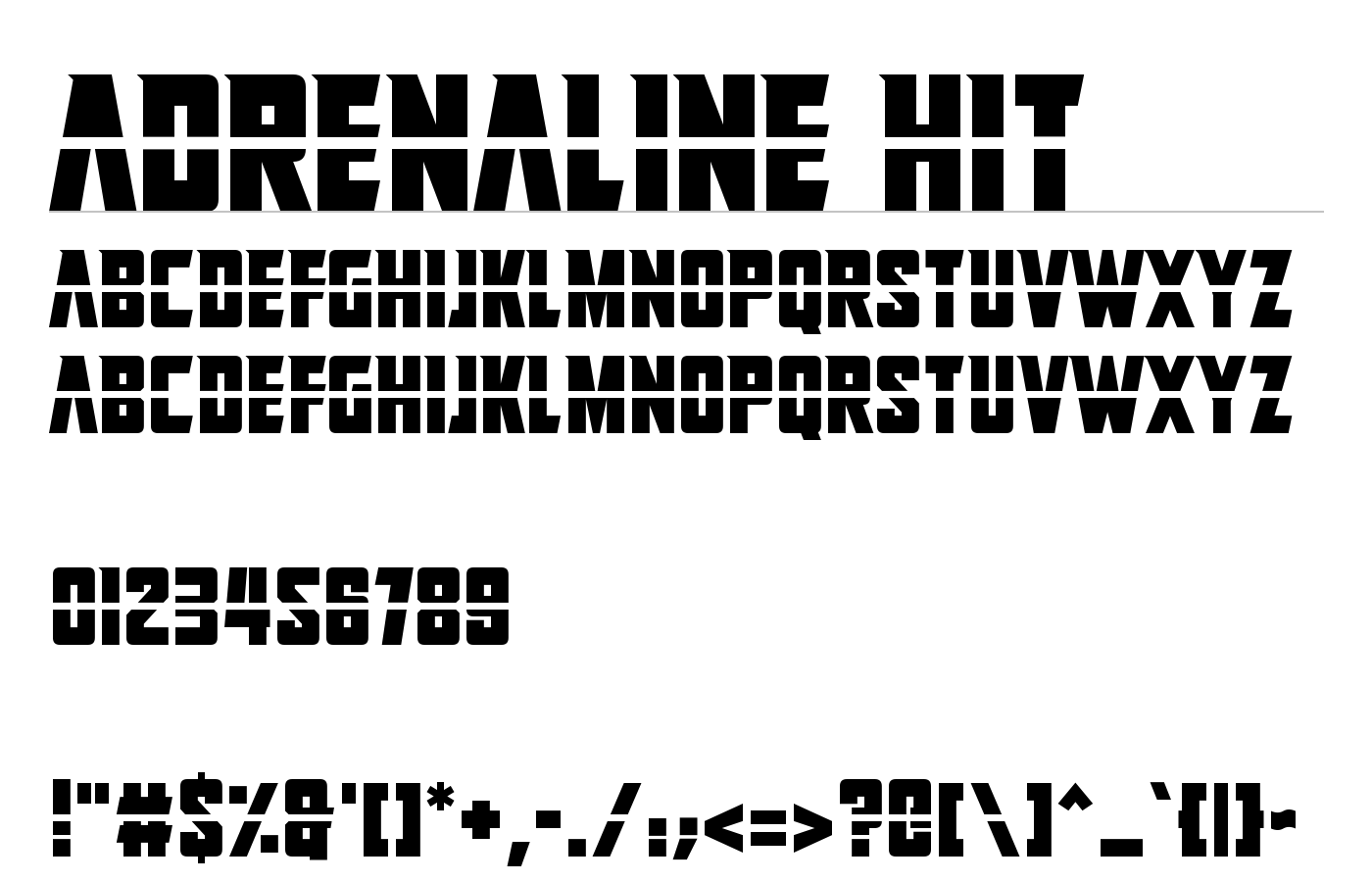
Adrenaline Hit is a bold, condensed sans serif font with a striking, geometric style that features strong block shapes and sharp angled cuts, giving it an energetic and aggressive personality. Its high contrast between thick strokes and cut-out sections creates a dynamic visual rhythm, making it ideal for impactful headlines, branding, and designs that demand attention. This font works especially well for sports, gaming, or extreme action themes where a sense of power and intensity is essential.
Adrenaline Hit Font
About Adrenaline Hit Font